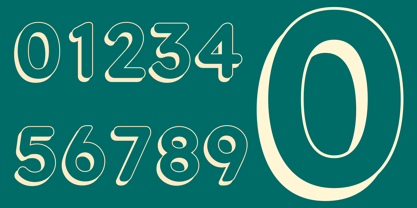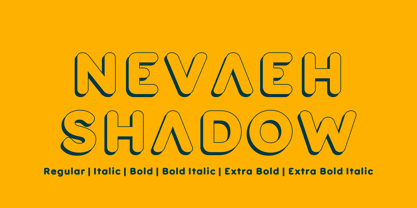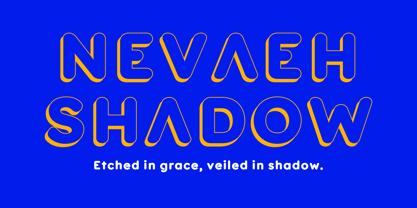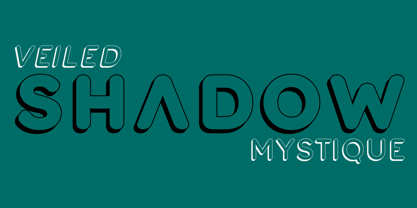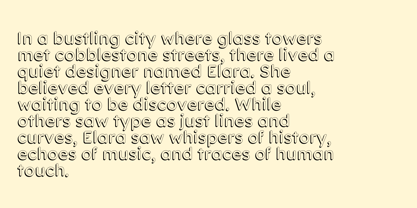
Nevaeh Shadow
by Kufic Studio
The Nevaeh Shadow Font Family was designed by Ahsan Ahmedzai and published by Kufic Studio. Nevaeh Shadow contains 6 styles and family package options. More about this family
Nevaeh Shadow is a bold and elegant variation of the Nevaeh font family, designed with a striking shadow effect that adds depth and sophistication to any text. Perfect for luxury branding, logos, posters, wedding invitations, and editorial design, this decorative serif typeface combines timeless elegance with modern drama. As part of the Nevaeh collection, Nevaeh Shadow helps your words stand out with style and impact.
Designers: Ahsan Ahmedzai
Foundry: Kufic Studio